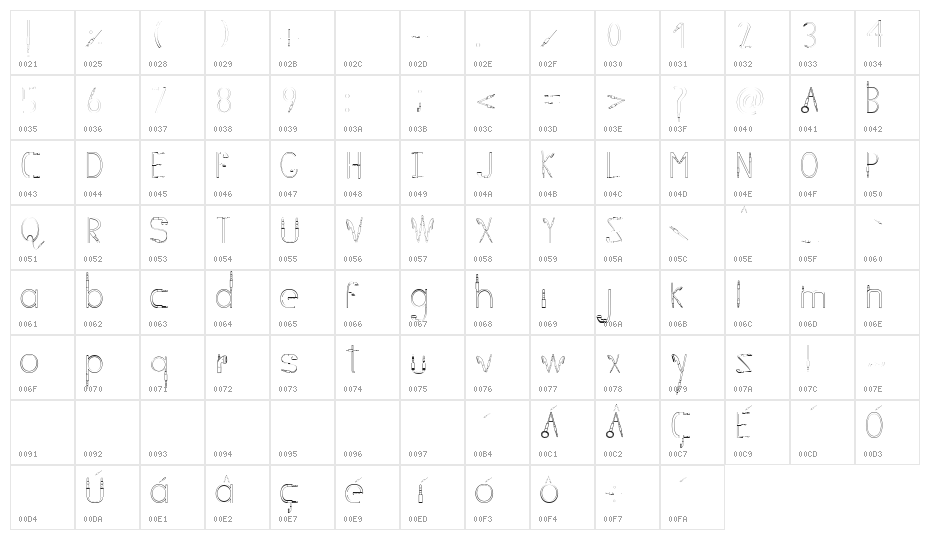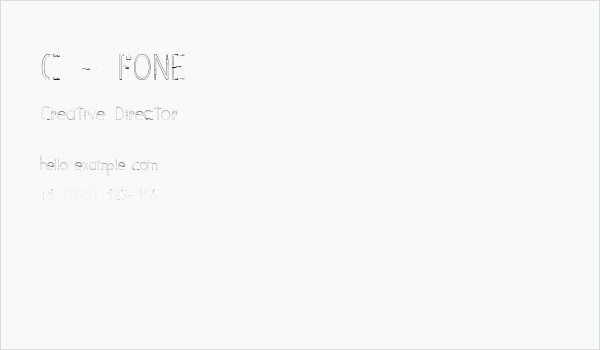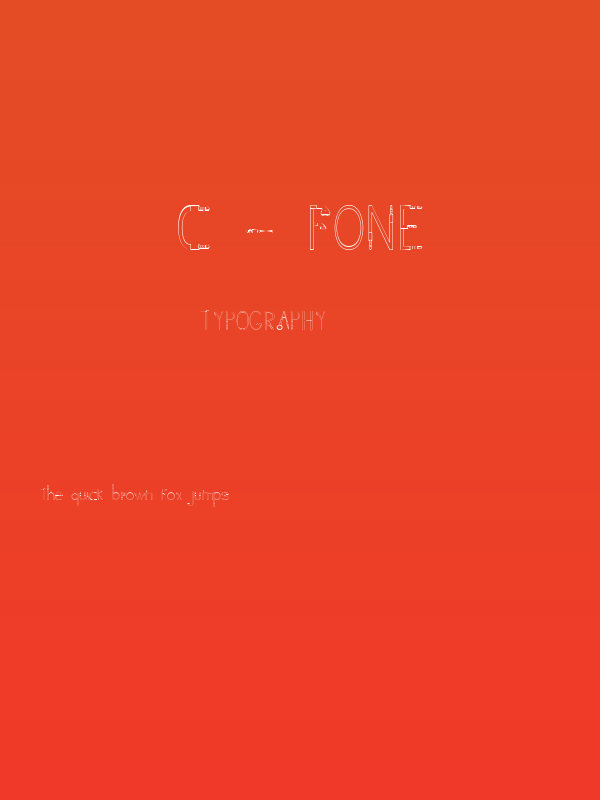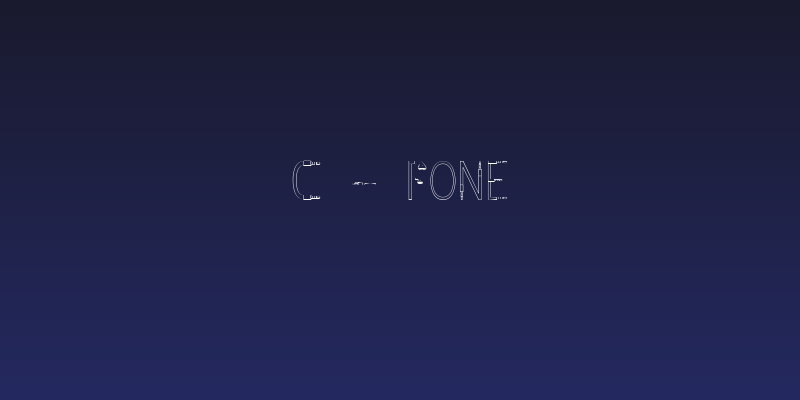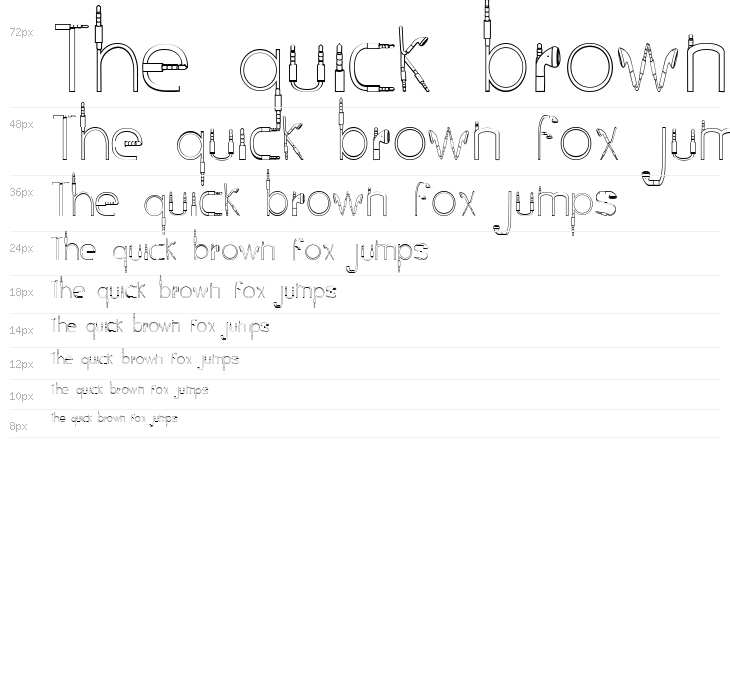
C - FONE Font
C - FONE Description
This font is a unique and creative design that incorporates headphone jack elements into each character. The letters and numbers are formed using the shapes and lines of audio plugs, giving it a distinct and playful appearance. The design cleverly integrates the technical aesthetic of audio equipment with typography, making it stand out as a decorative and thematic choice. Each character maintains legibility while showcasing intricate details that mimic the look of cables and connectors. This font is ideal for projects that aim to convey a sense of modernity and technology, especially in music or audio-related contexts.
Proposed ProjectsIdeal for music-themed posters, audio equipment branding, tech blogs, and creative digital media projects.